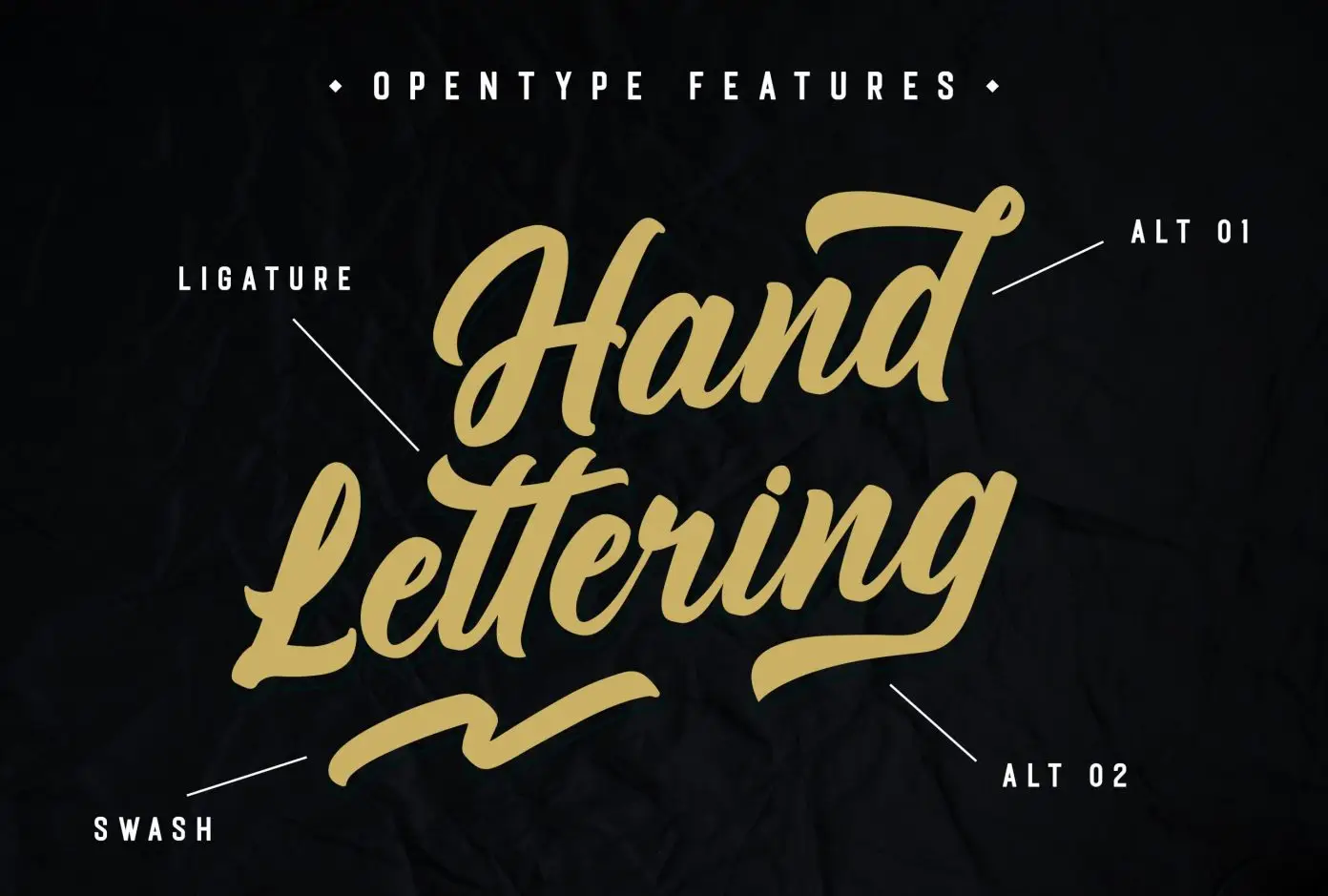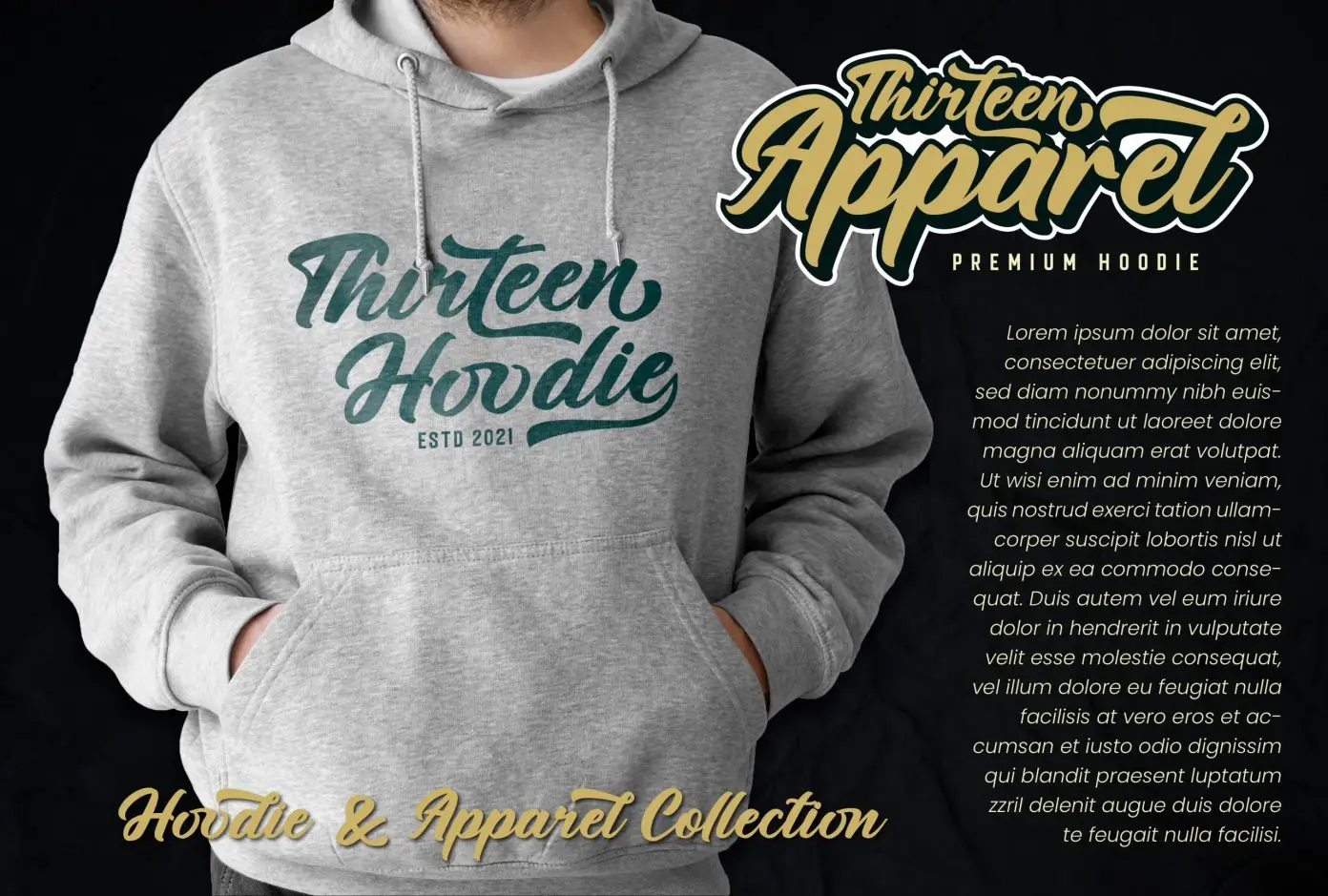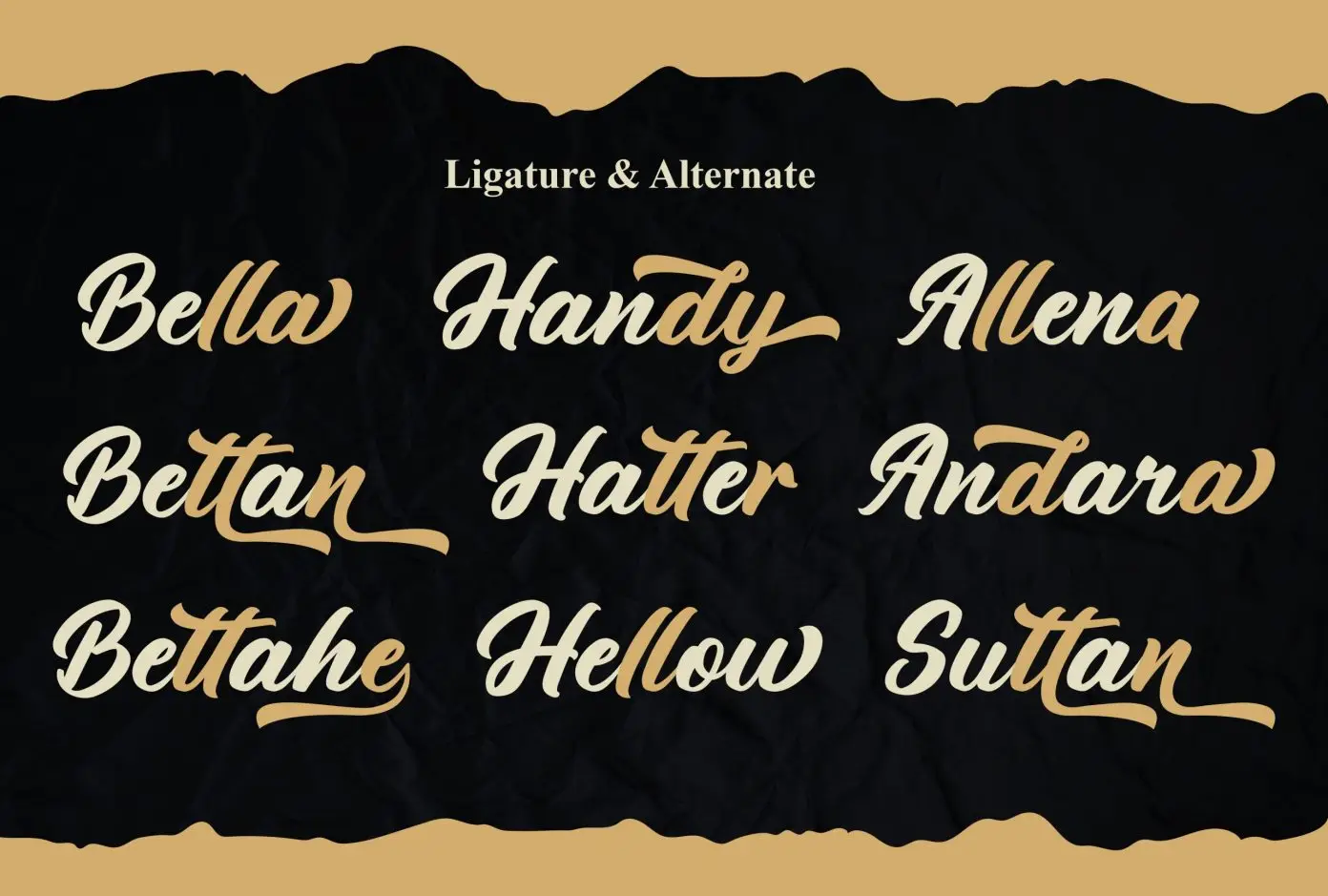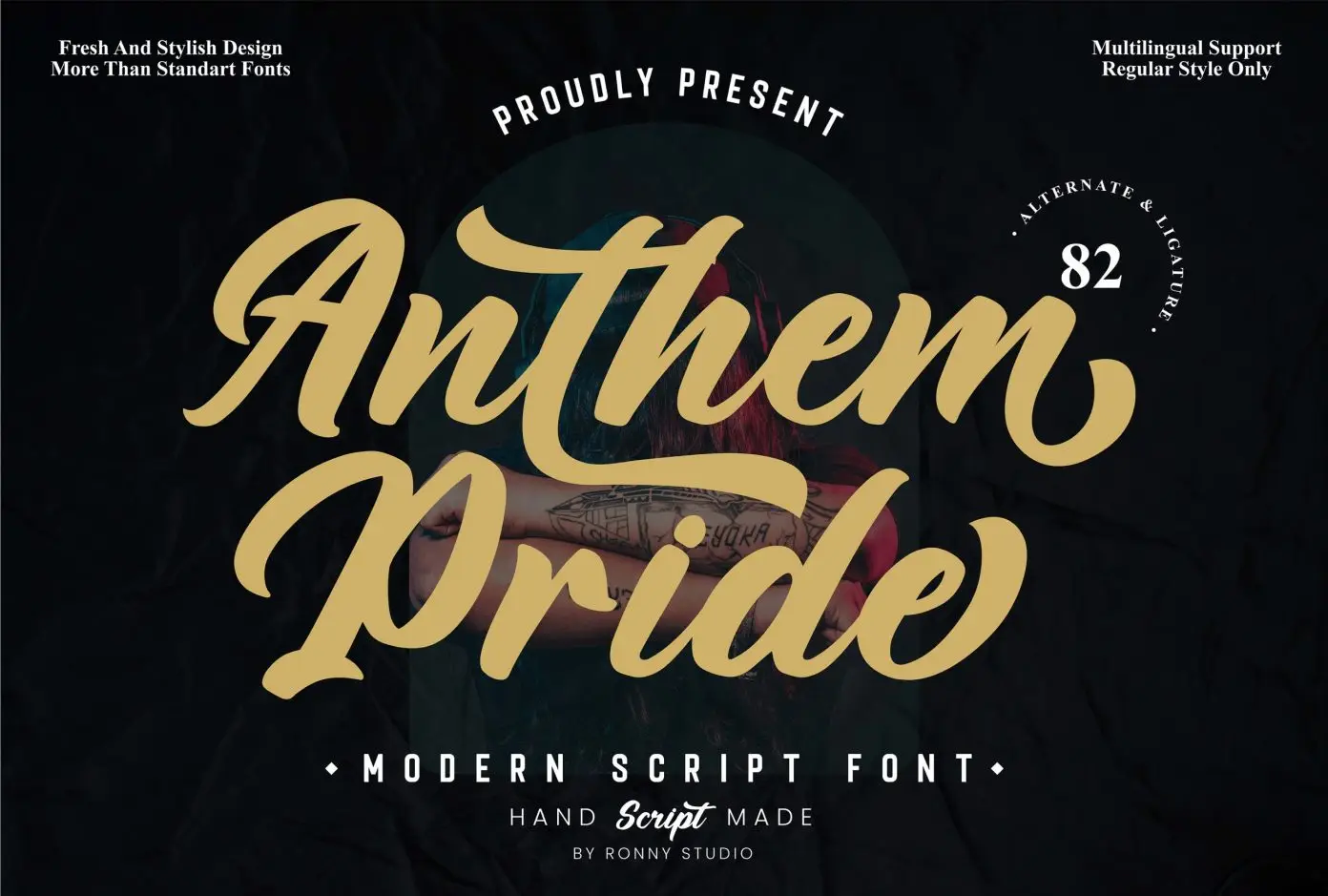
The Anthem Pride Script Font is a beautifully crafted typeface that embodies elegance and creativity. With its flowing lines and unique character shapes, this font is perfect for a variety of applications, including branding, logos, and promotional materials.
- Stylish script design with a modern touch
- Multiple weights available for versatility
- Supports multilingual characters
- Easy to read at various sizes
- Styles: Regular, Bold
- Ideal for creating eye-catching logos and branding materials
- Great for invitations, greeting cards, and social media graphics
- Use in both print and digital formats for maximum impact